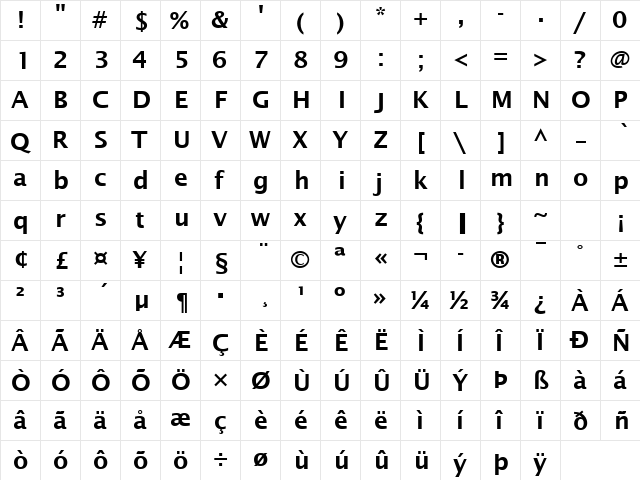
Precision Bold
Design Context for Precision Typeface
Precision is a composed and adaptable typeface that performs quietly and consistently across a wide range of design contexts. The heavy weight commands attention and anchors typographic hierarchies.